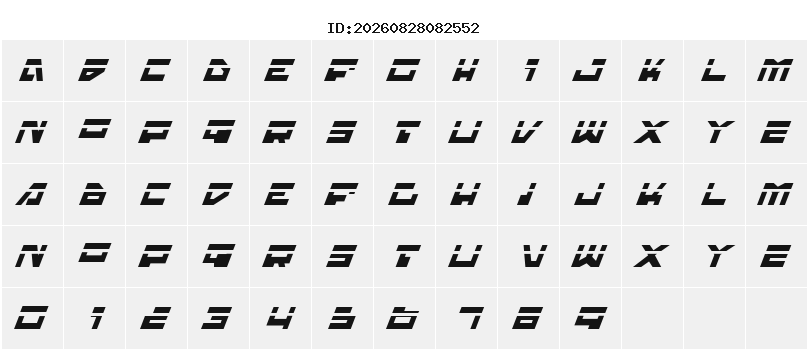
Trajia Laser Italic Preview
• Font Name: Trajia Laser Italic
• Font Style: Laser Italic
• Full Font Name: Trajia Laser Italic
About Trajia Laser Italic.ttf
Trajia Laser Italic.ttf is a modern, elegant sans-serif font designed for ultimate readability and visual harmony. Perfect for branding, headlines, web design, and print materials.